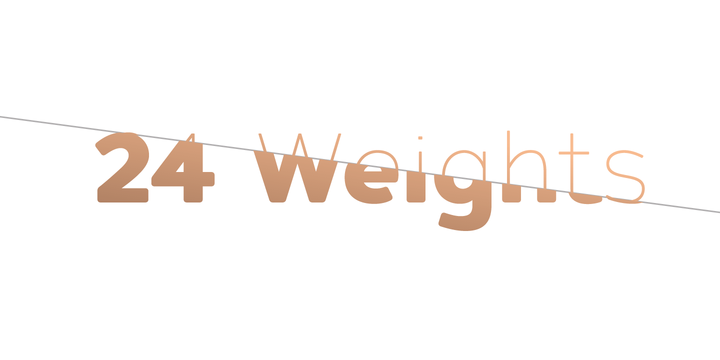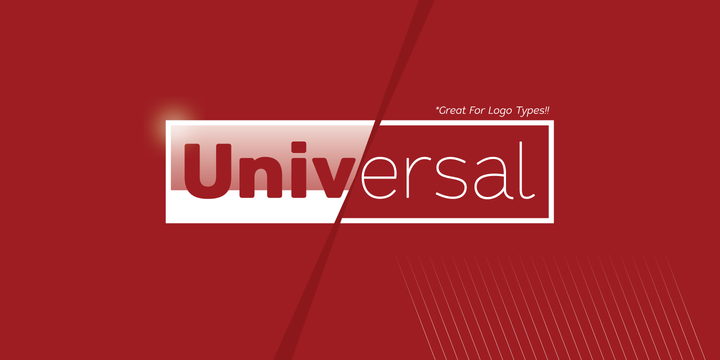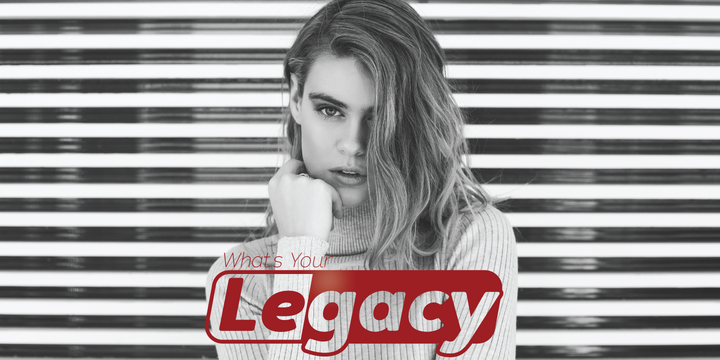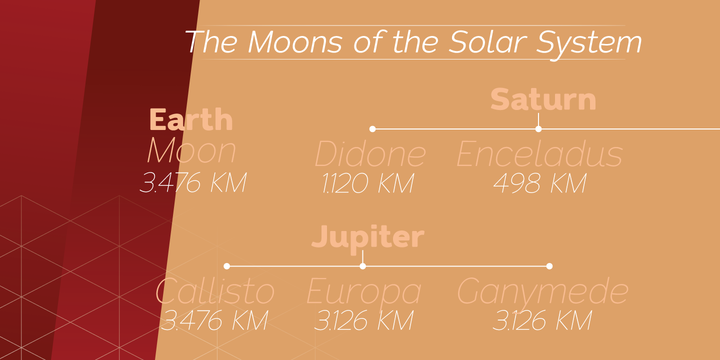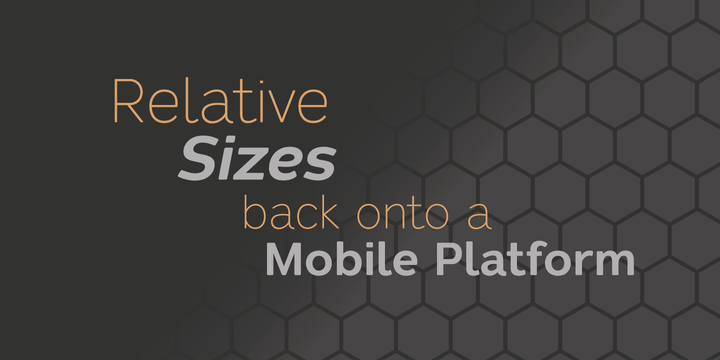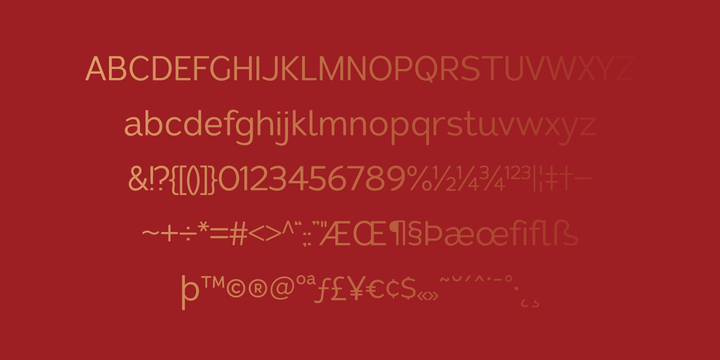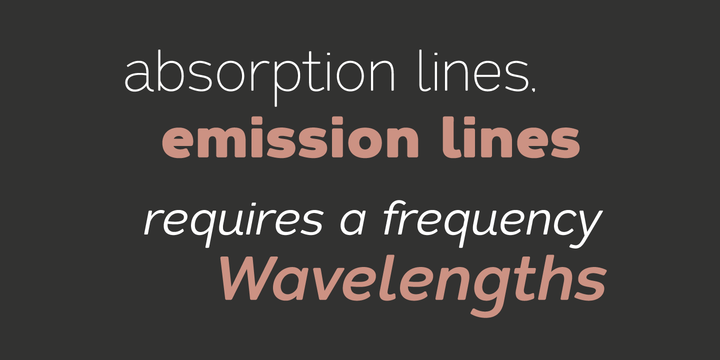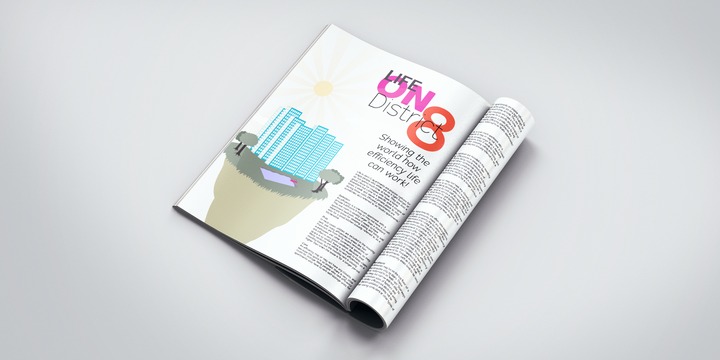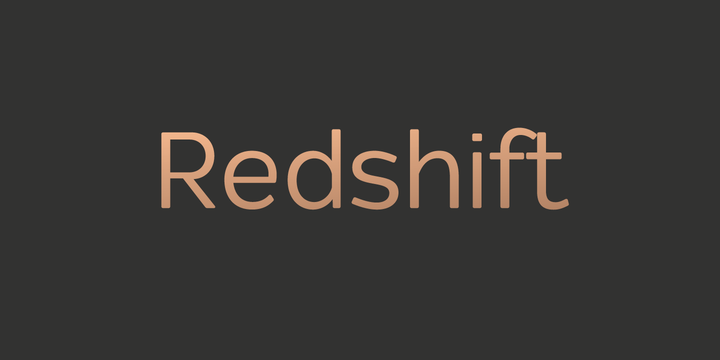
Redshift Font Family
Redshift is sans with 12 upright weights and 12 oblique weights. Its a soft edged, spaced out offering from Rocket Type. It supports most extended Latin languages including English, Spanish, French, Italian, German, Polish and Portuguese.